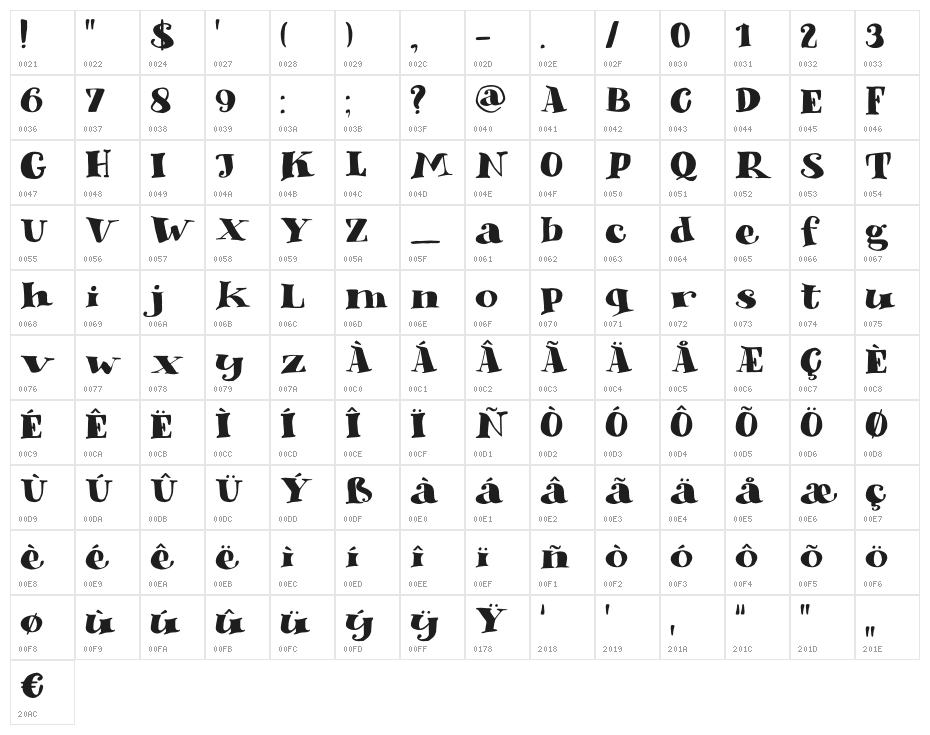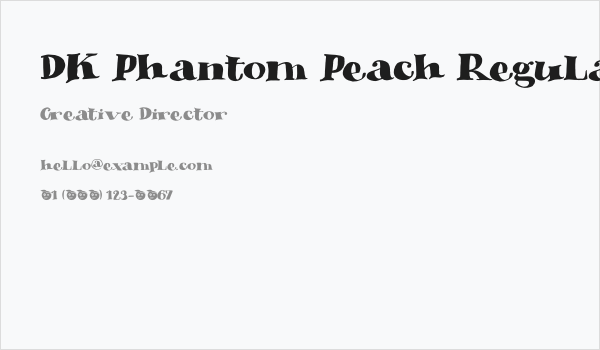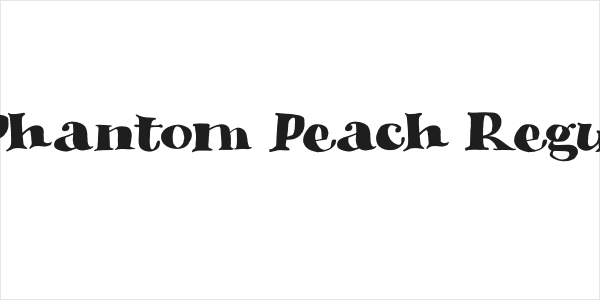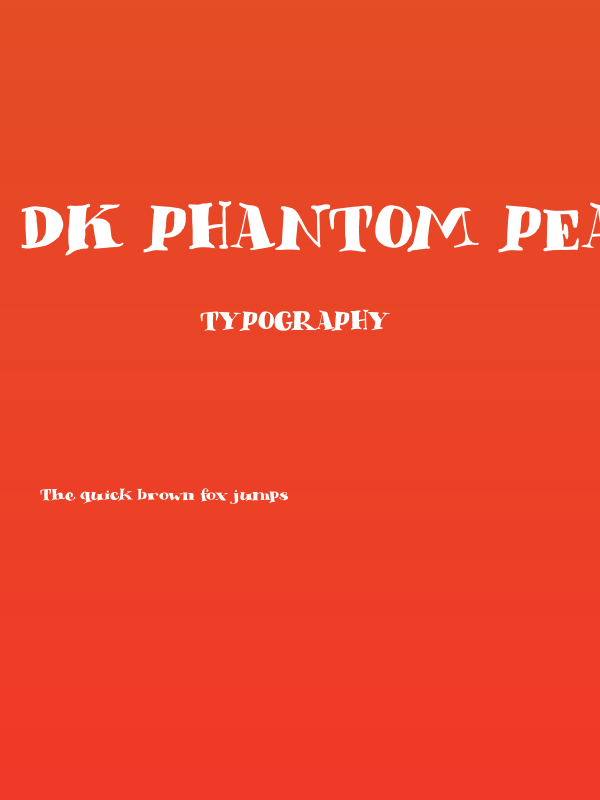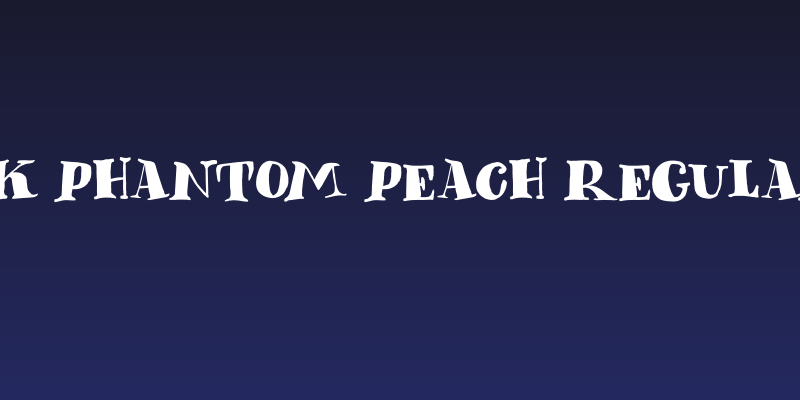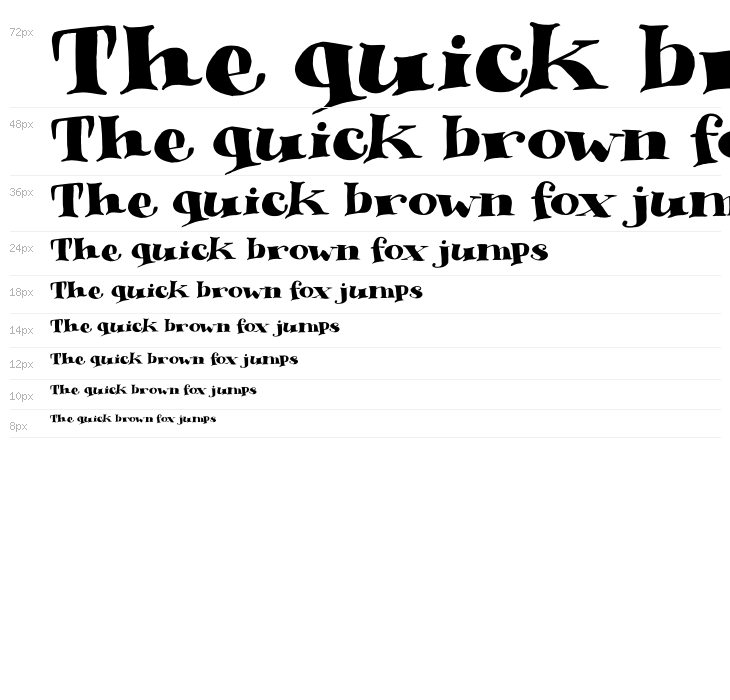
DK Phantom Peach Regular Font
DK Phantom Peach Regular Description
This font features a playful and spooky design, characterized by its bold and irregular letterforms that evoke a sense of whimsy and mystery. The uppercase and lowercase letters have a hand-drawn quality, with exaggerated curves and angles that give them a unique, almost cartoonish appearance. The numbers and special characters are equally distinctive, with some incorporating thematic elements like jack-o'-lantern faces, enhancing the font's Halloween-inspired aesthetic. The overall style is decorative and eye-catching, making it ideal for projects that require a fun and festive touch.
| Proposed Projects | Ideal for Halloween-themed designs, party invitations, posters, and children's book covers. |